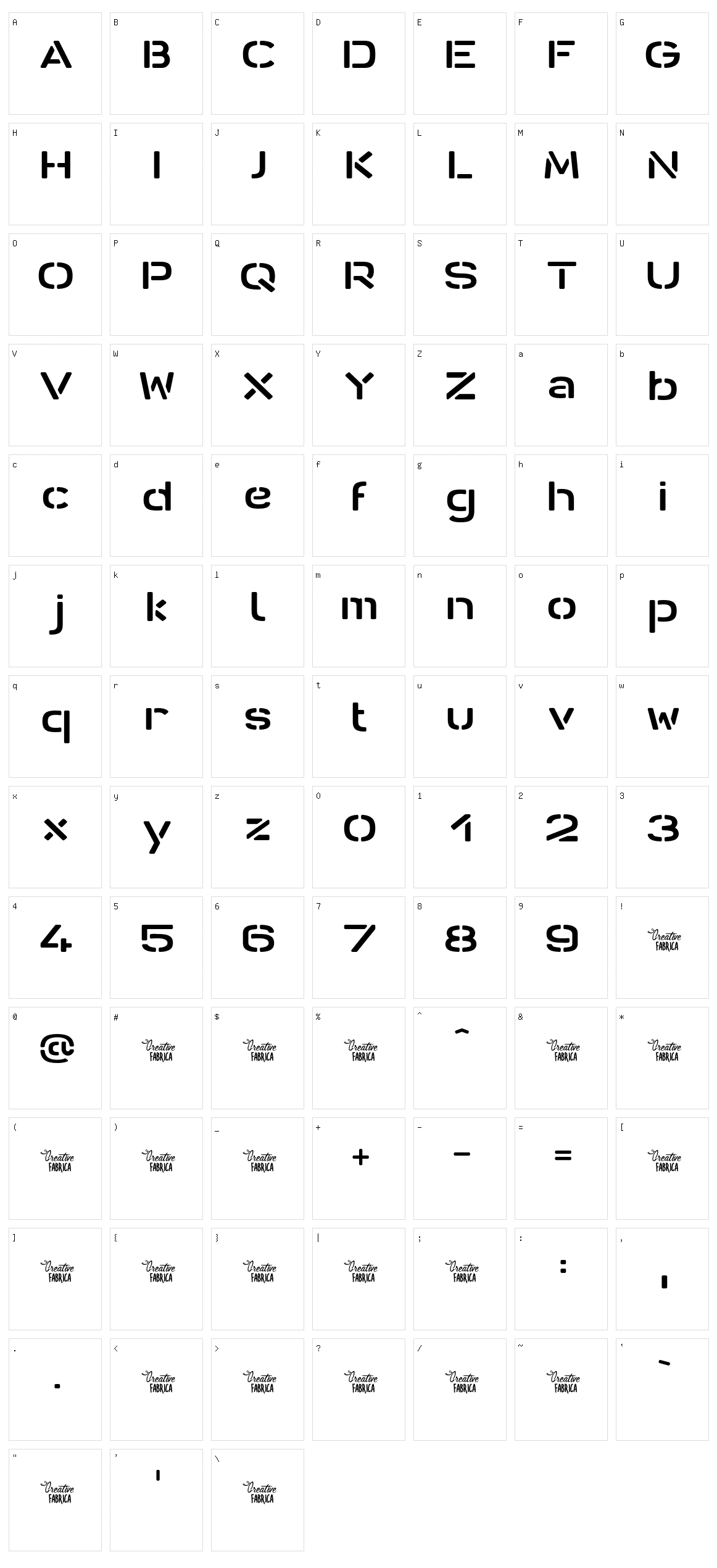
The free font Antaris ST CF is carefully designed by Dag@bert, showcasing a thoughtful balance of creativity and usability and falls under the Stencil font style. When you download the ZIP file, it contains only 48.2 KB of font files, making it lightweight and quick to download. Please review the license details below to understand permitted usage and distribution rights. If license information is not available, we recommend using this font for personal projects only or contacting the author directly for commercial usage permissions.